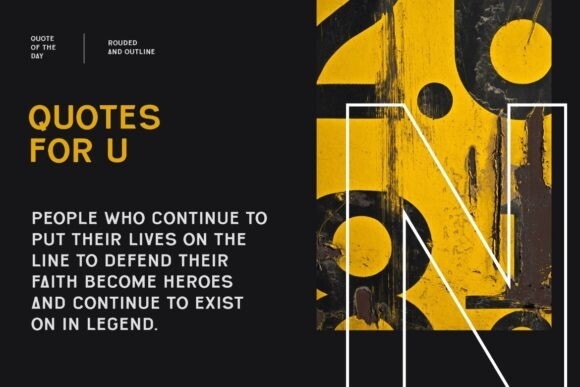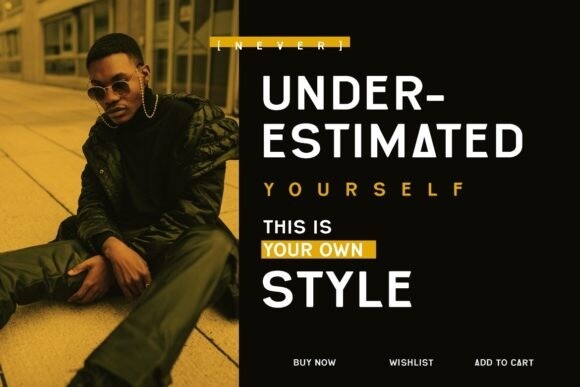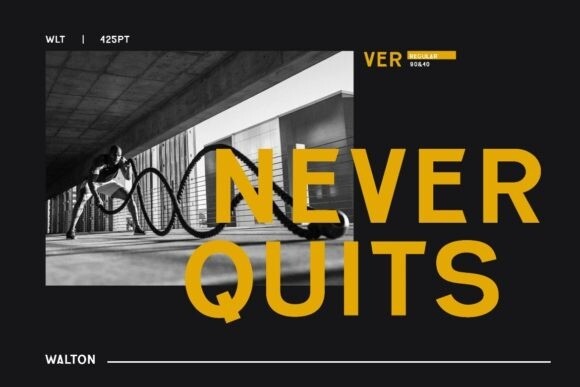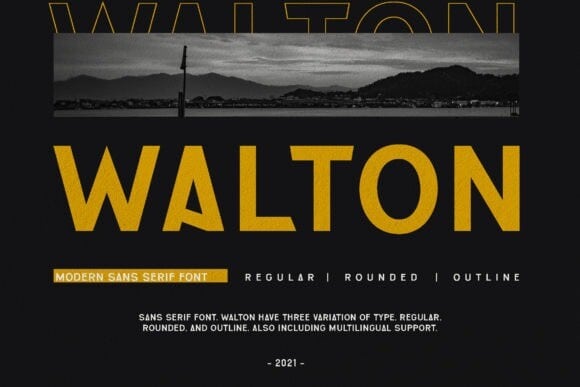
Walton Font
Walton Font is a display typeface that embraces the mid century feeling. No matter the topic, this font will be an incredible asset to your fonts’ library, as it has the potential to elevate any creation. Walton can be used diversely, but is particularly best in logos, headlines, text over images and any large typographic application.